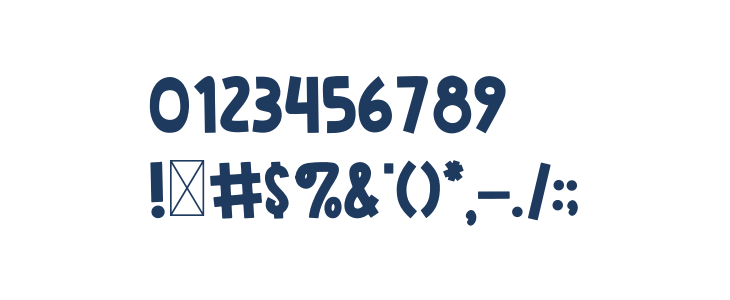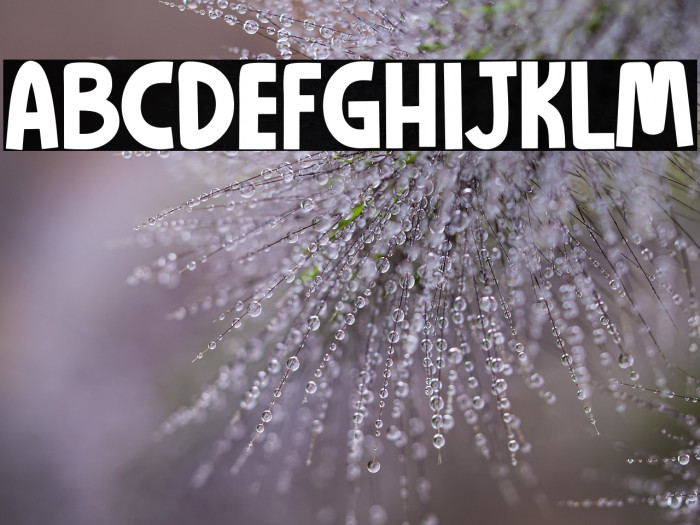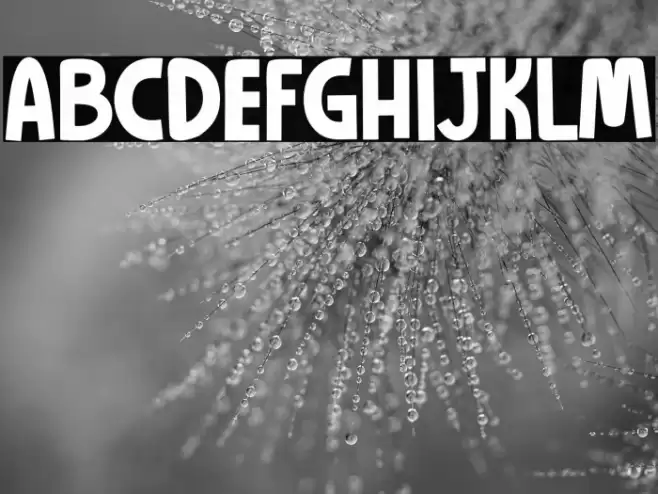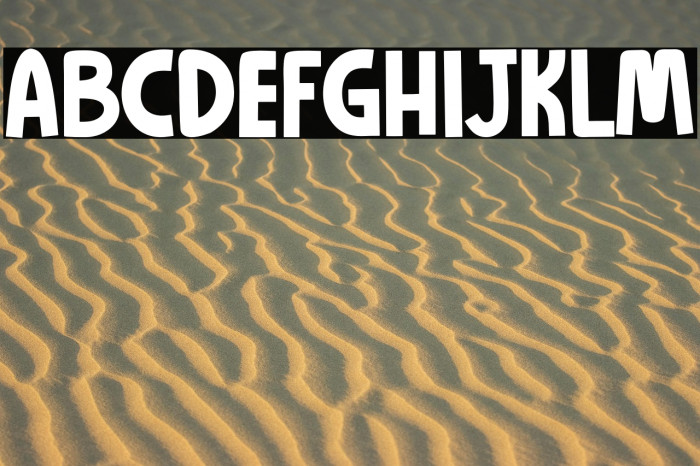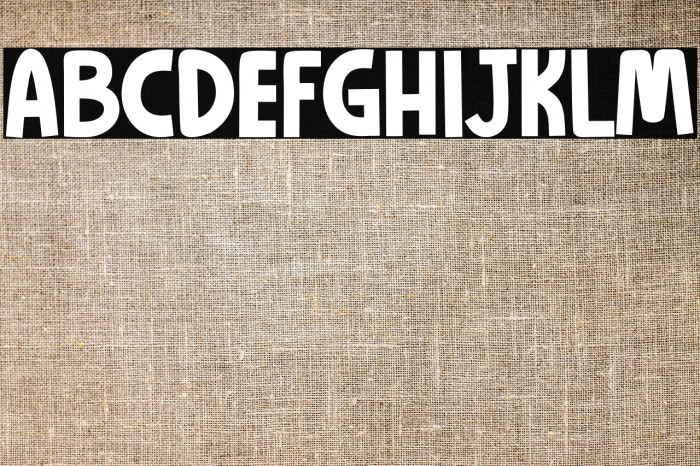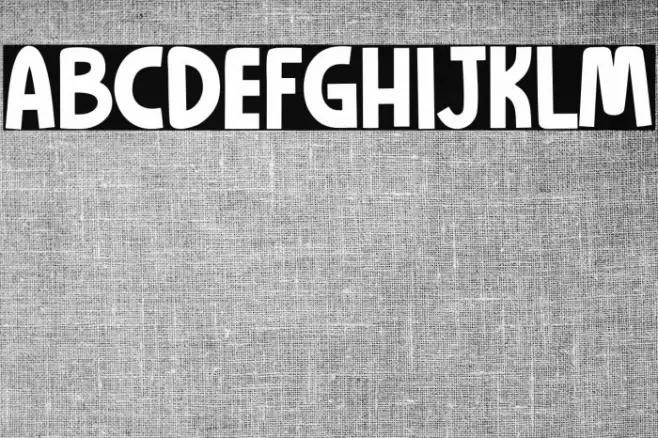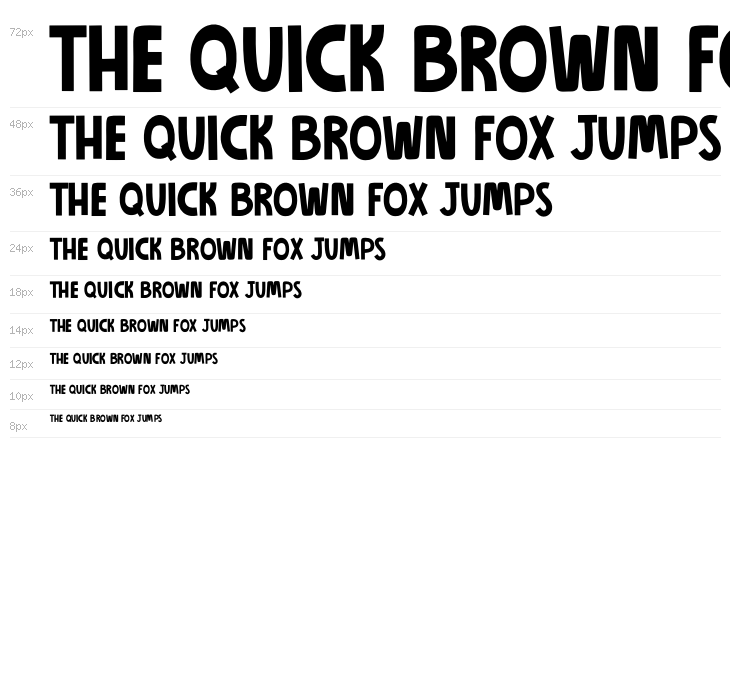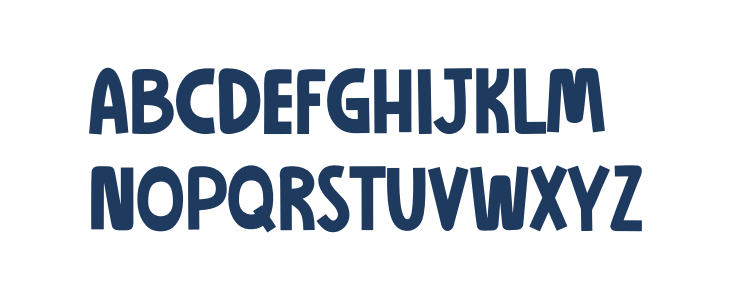
ROAD TO JUSTICE Font
ROAD TO JUSTICE Description
This font features bold, rounded characters with a playful and energetic style. The uppercase letters are uniformly thick, giving a strong and impactful appearance. The numbers and special characters maintain the same boldness, ensuring consistency across all glyphs. The overall design is slightly condensed, which adds to its dynamic feel. This font is highly legible and stands out due to its unique character shapes and bold strokes. It is perfect for projects that require a fun and engaging typeface.
| Proposed Projects | Ideal for children's books, posters, branding, and playful advertising campaigns. |